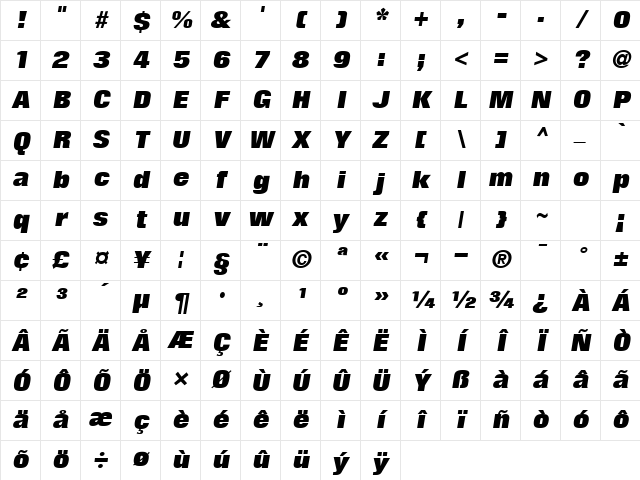
ElenchusBlack Oblique
ElenchusBlack Family
ElenchusBlack Oblique
Design Context for ElenchusBlack
ElenchusBlack is a composed and adaptable typeface that performs quietly and consistently across a wide range of design contexts. The slanted form adds forward momentum and visual energy.
Pro Tip: Use ElenchusBlack for emphasis, pull quotes, and subheadings where its slanted energy can add rhythm to the layout.